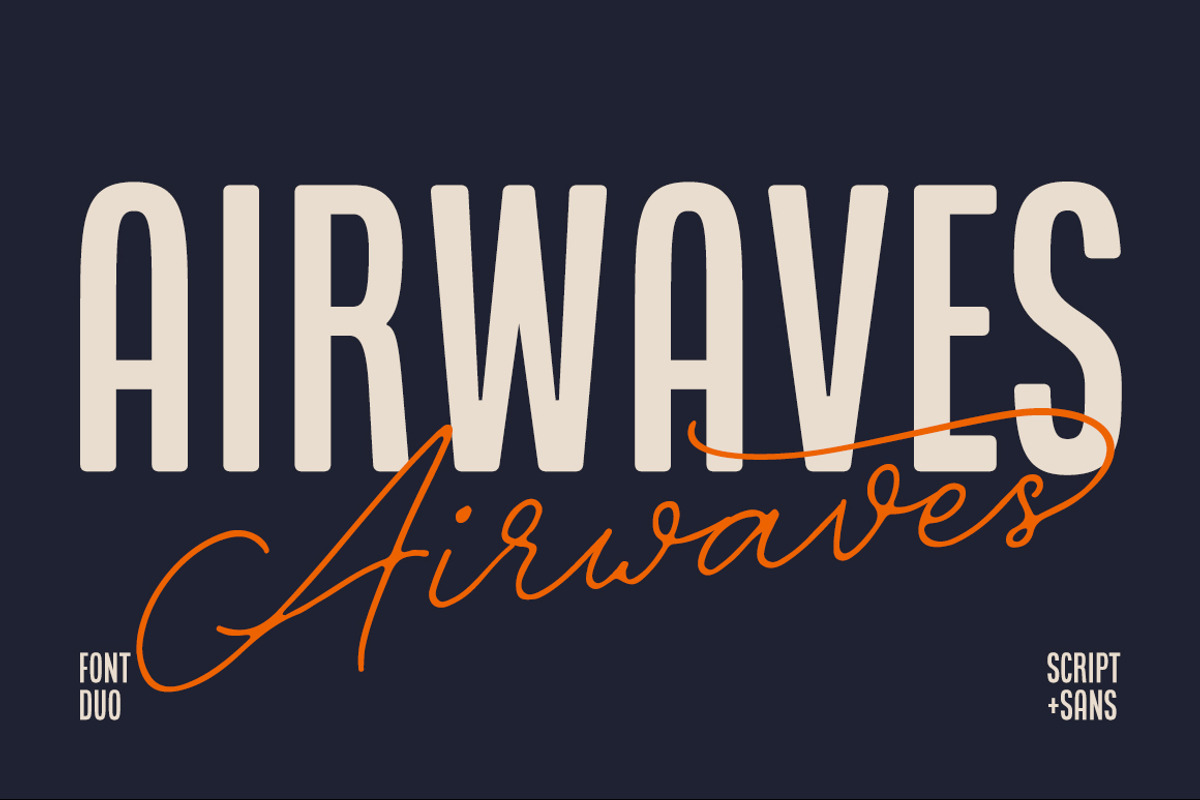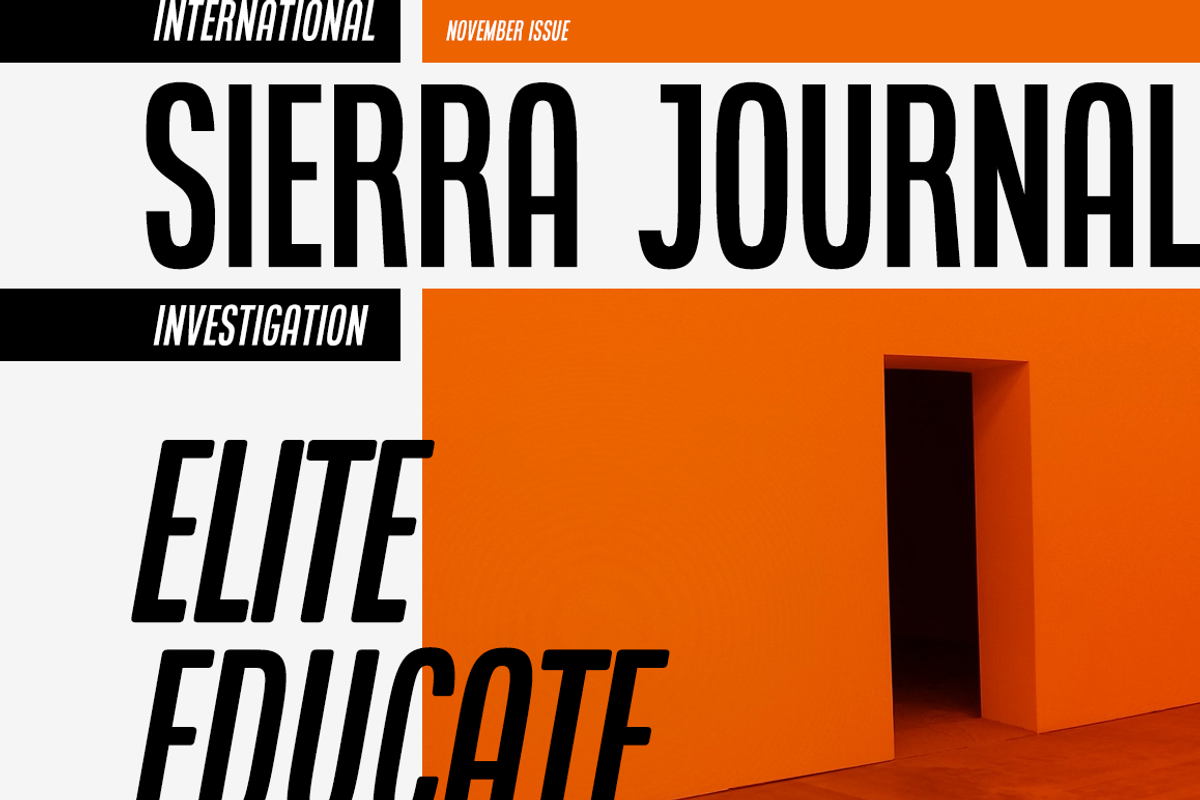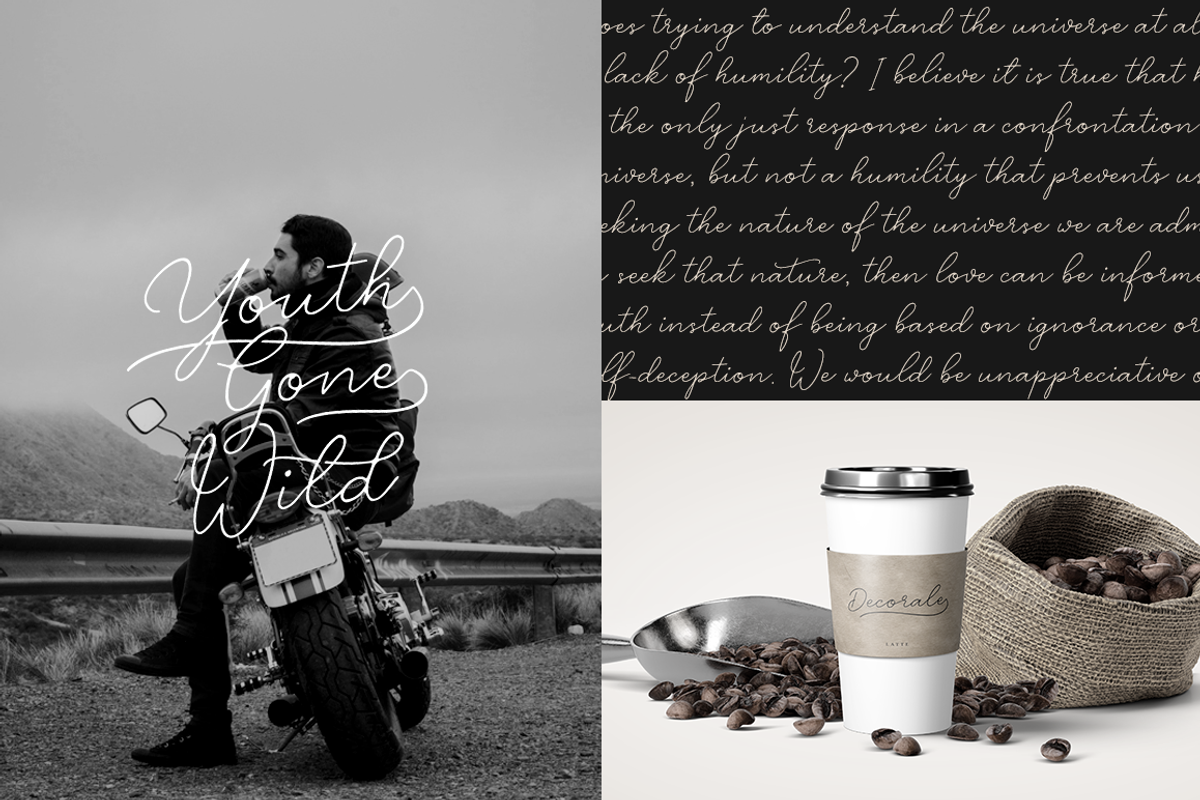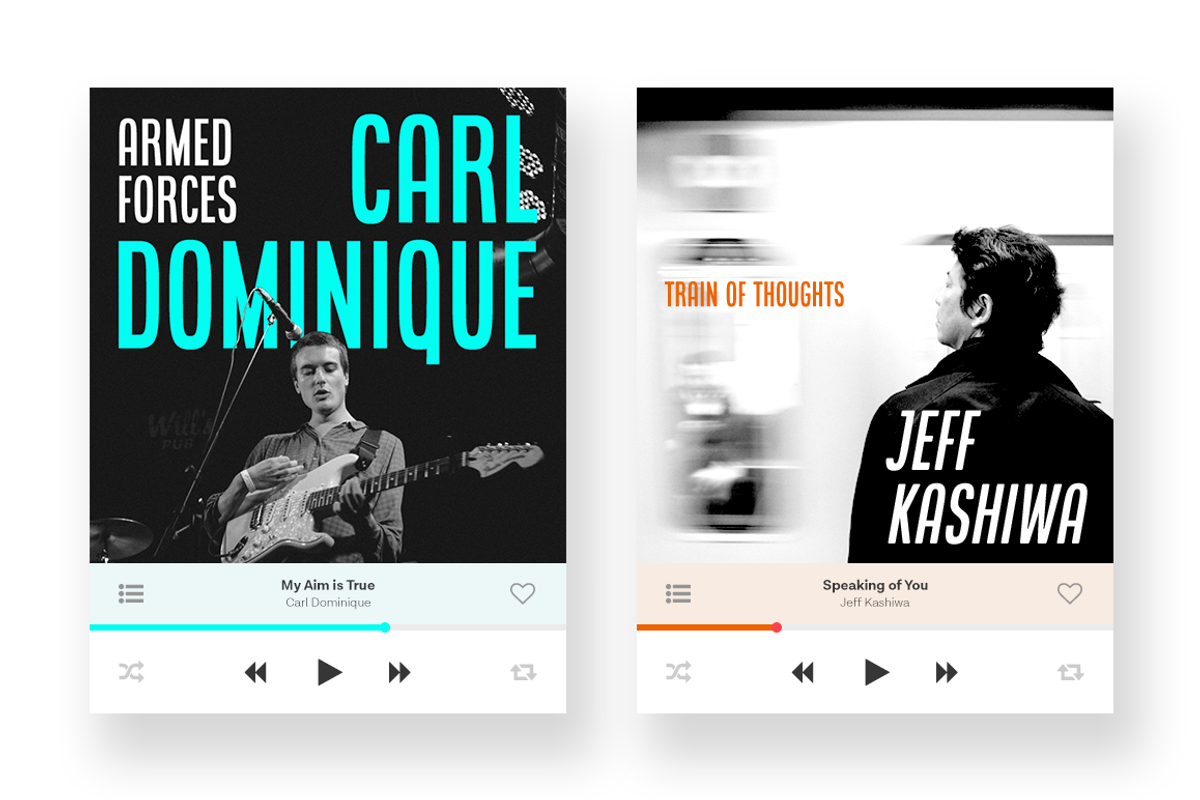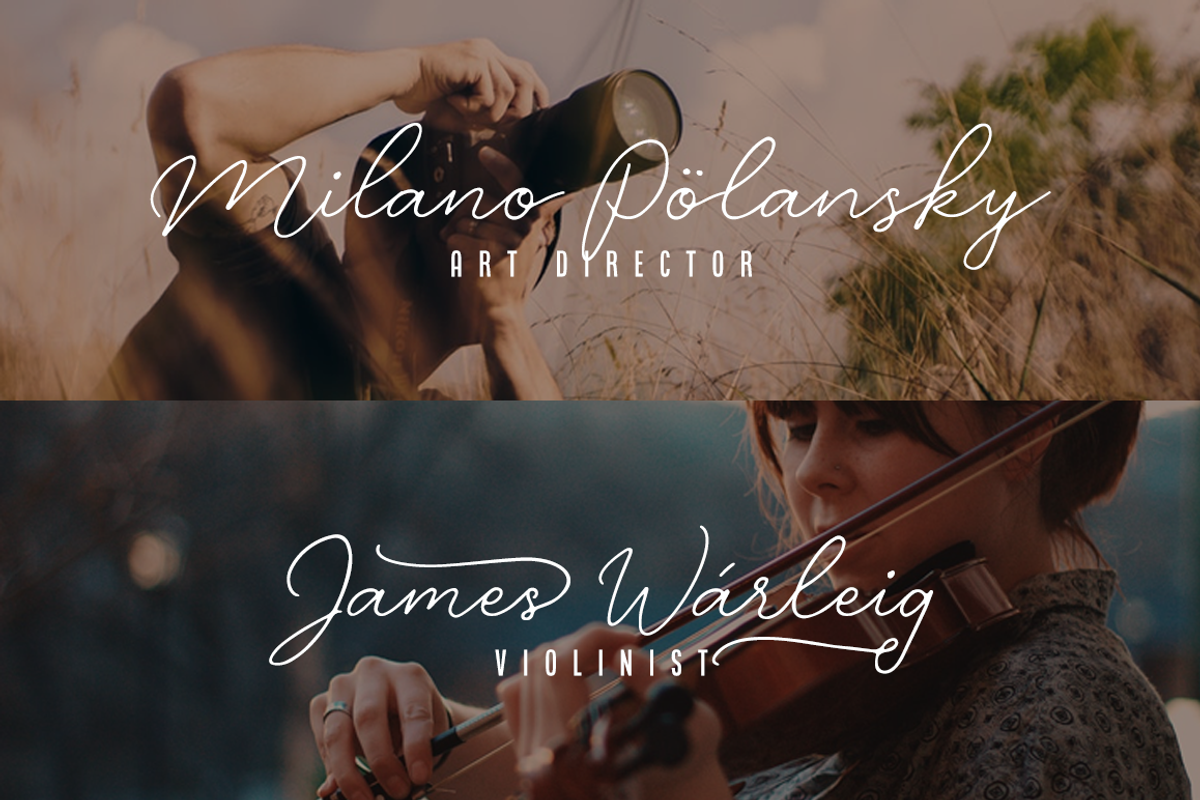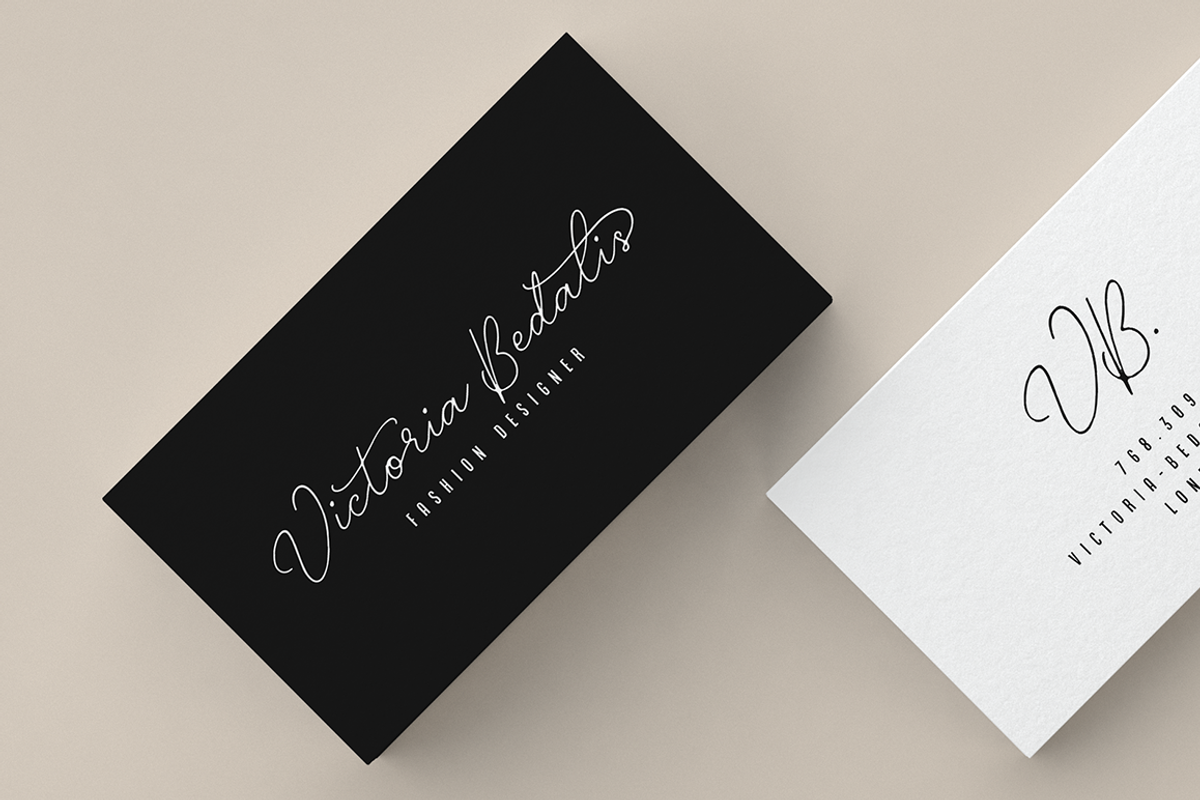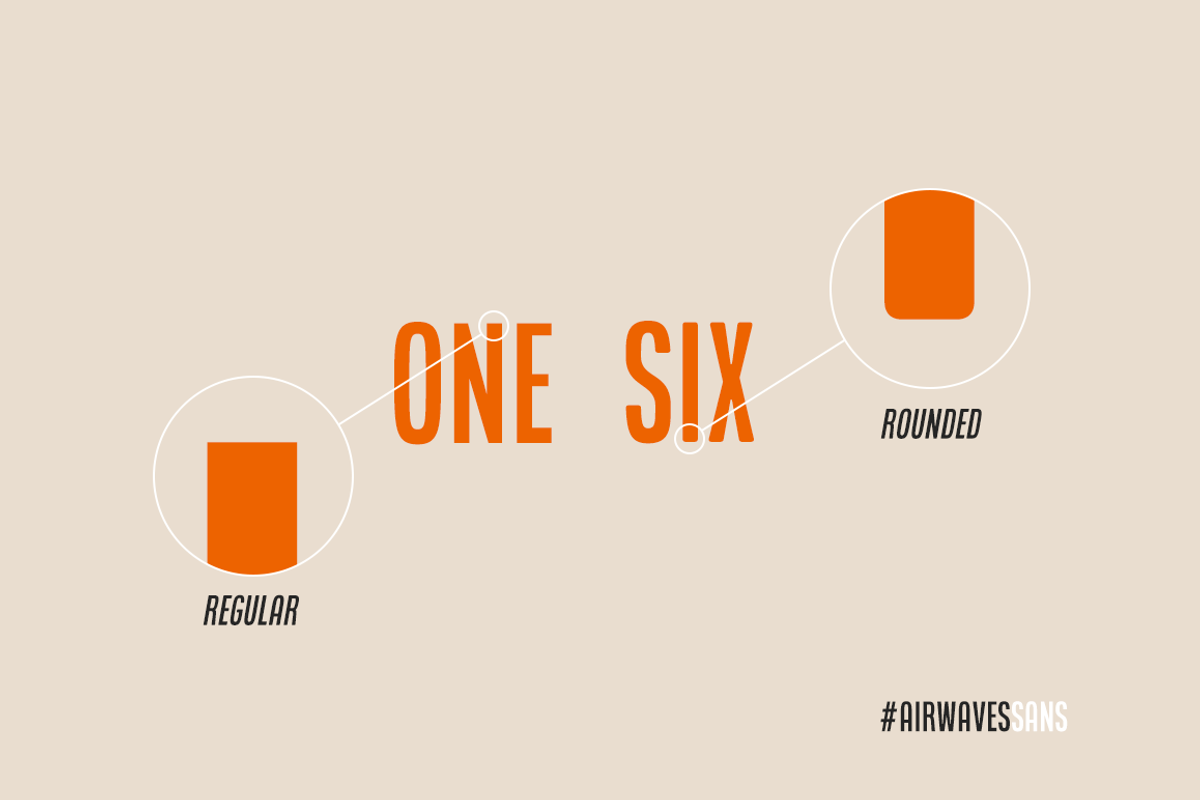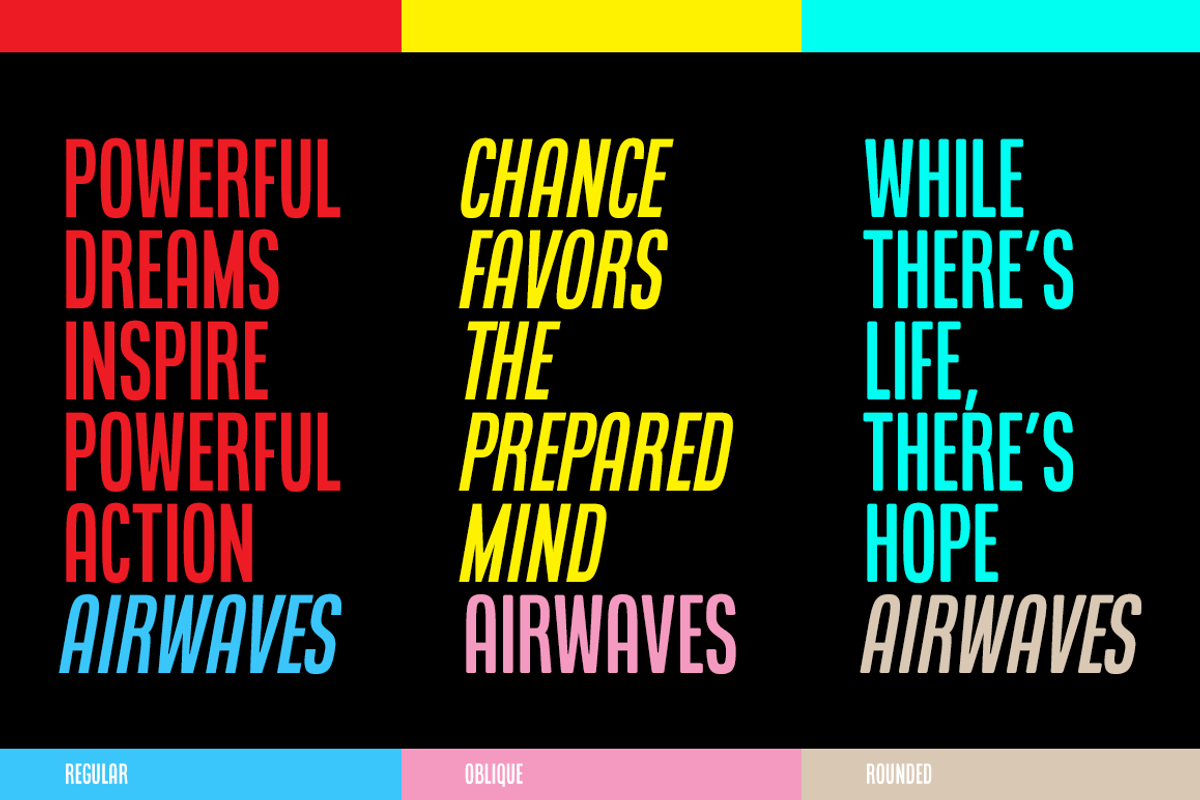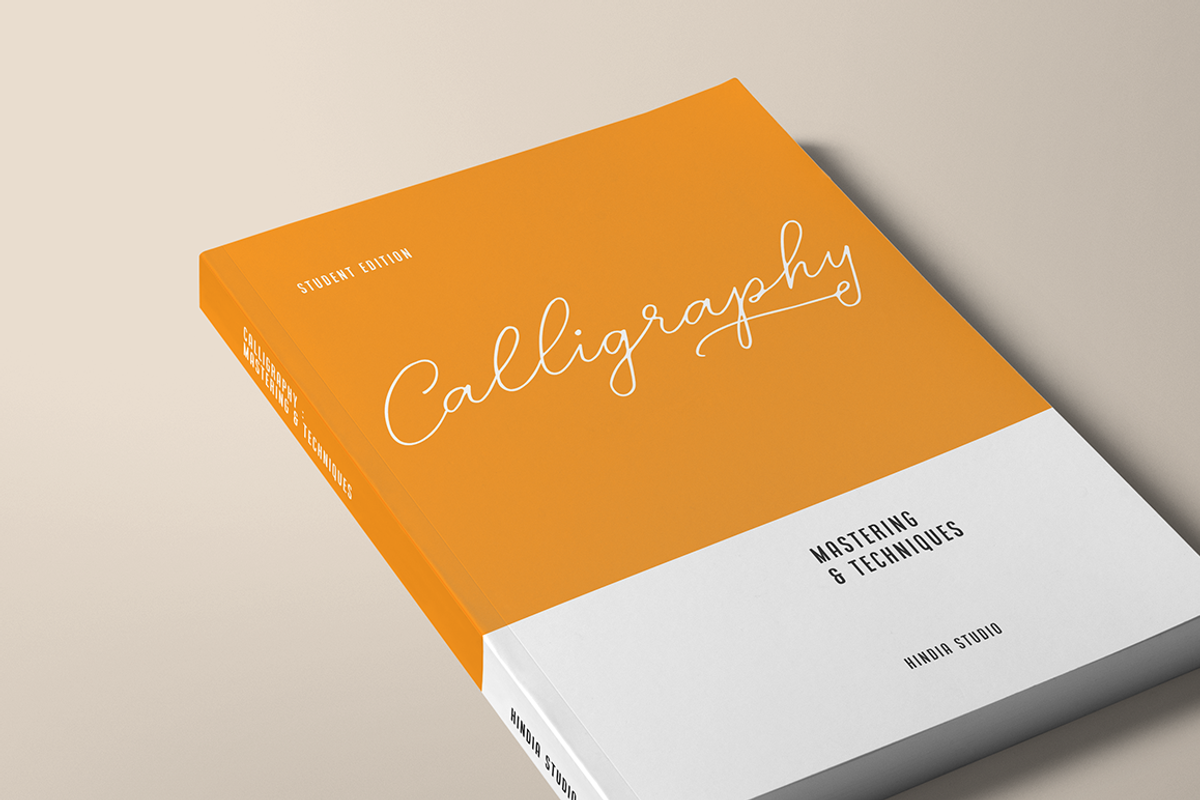
Airwaves Font Duo
AIRWAVES FONT DUO | Solid condensed sans & signature-ish script
Airwaves is a gorgeous font duo that unites condensed sans serif & signature-ish script together into a supercool package. It comes with 6 styles in total, awesome right? The condensed versions are solid and intentionally making strong statements even in small spaces. In addition to the condensed sans, Airwaves also provides the script version which has sleek cursive with thinline stroke and classy flow. It comes with various opentype alternates to achieve the natural handwriting look. Airwaves is simply beautiful and will fit nicely into your projects.
- Airwaves Regular
- Airwaves Oblique
- Airwaves Rounded
- Airwaves Rounded Oblique
- Airwaves Script One
- Airwaves Script Two
Sans Features:
- All caps
Script Features:
- Stylistic alternates 01 : A-Z, a-z
- Stylistic alternates 02 : a-z
- Stylistic alternates 03 : a-z
- Stylistic alternates 04 : d, e, g, j, s, t, y
- PUA Unicode
*PUA Unicode means allowing individuals that don't have special gylph software (e.g Photoshop or Illustrator) to access the alternates.